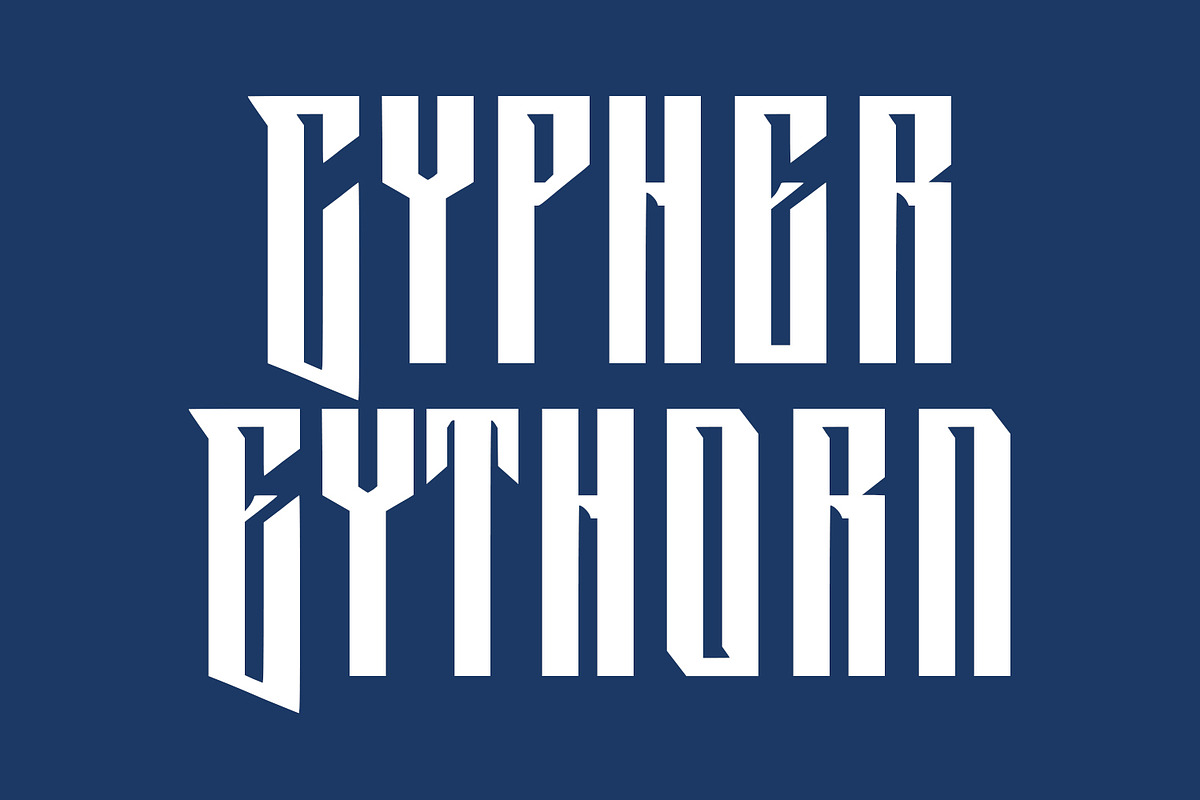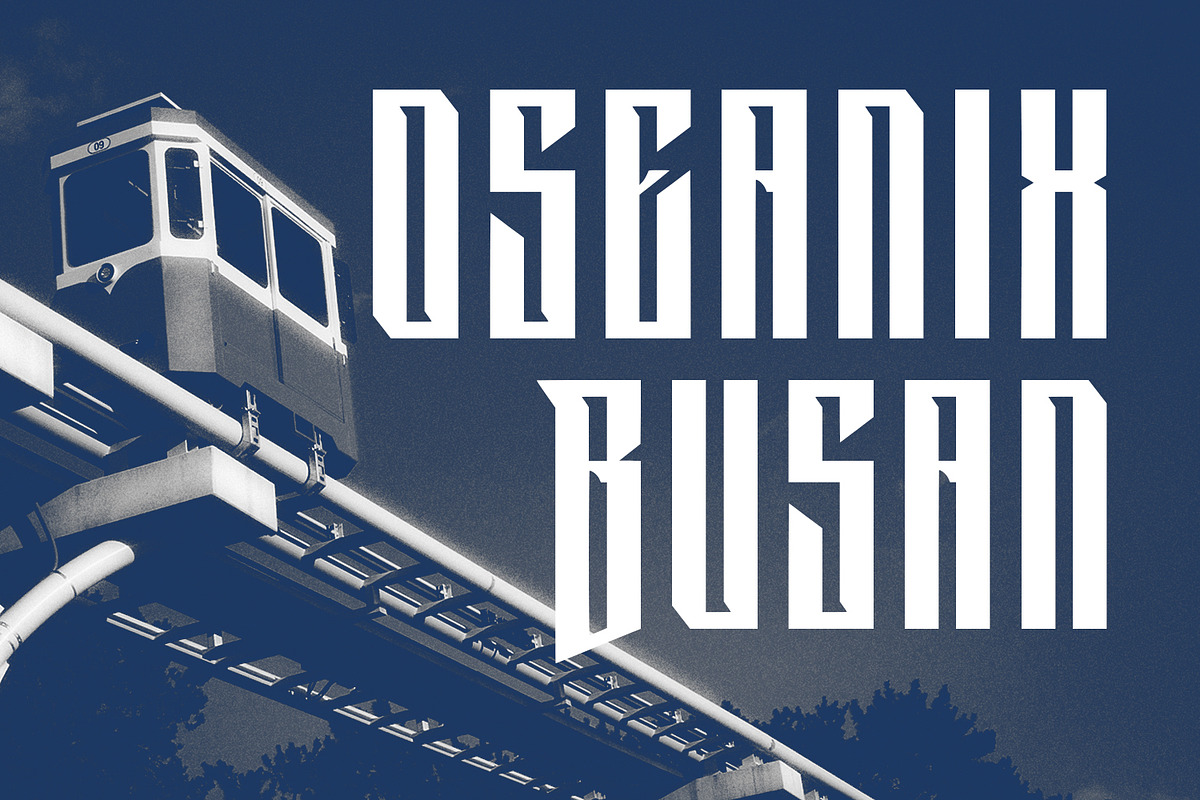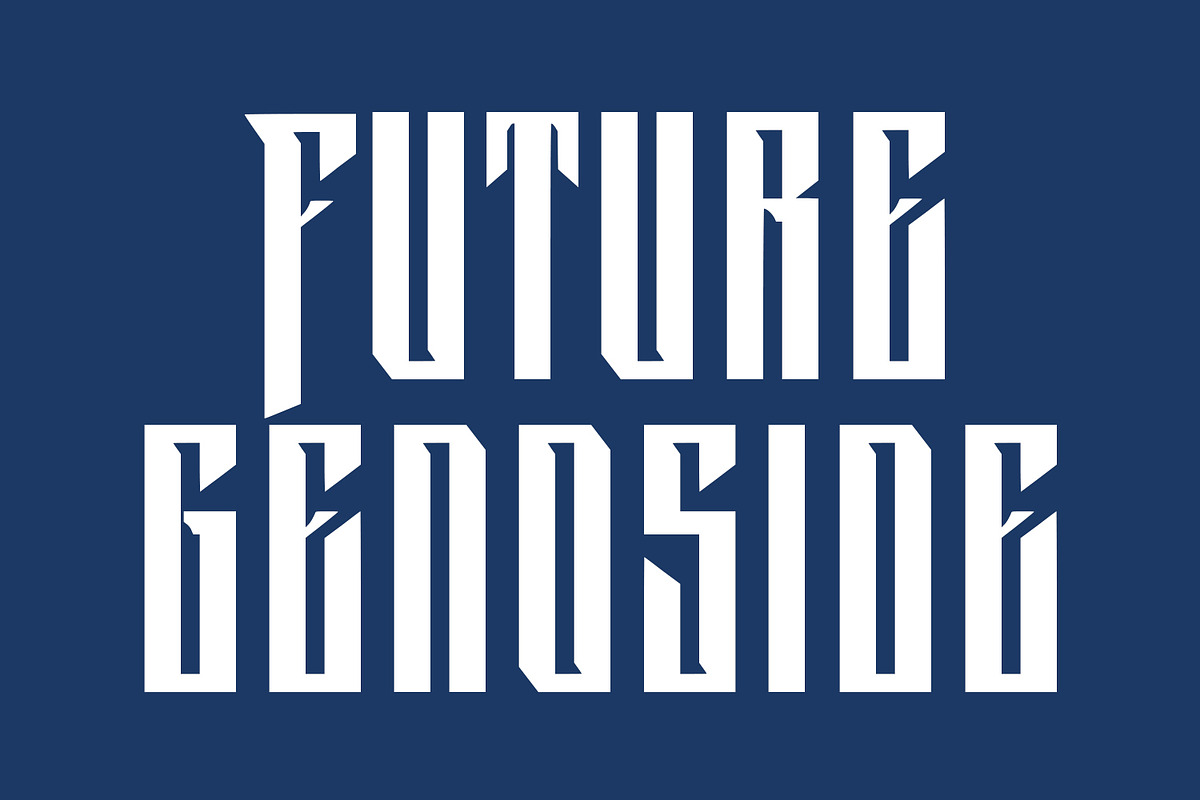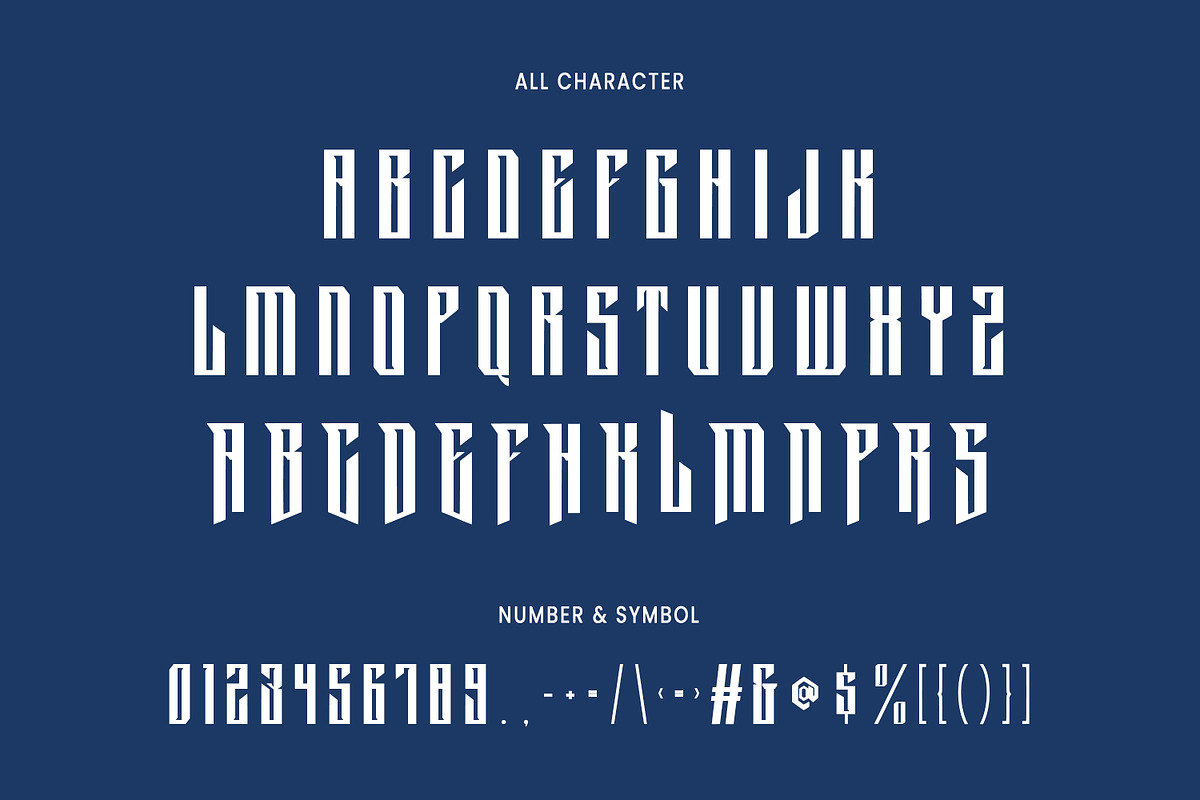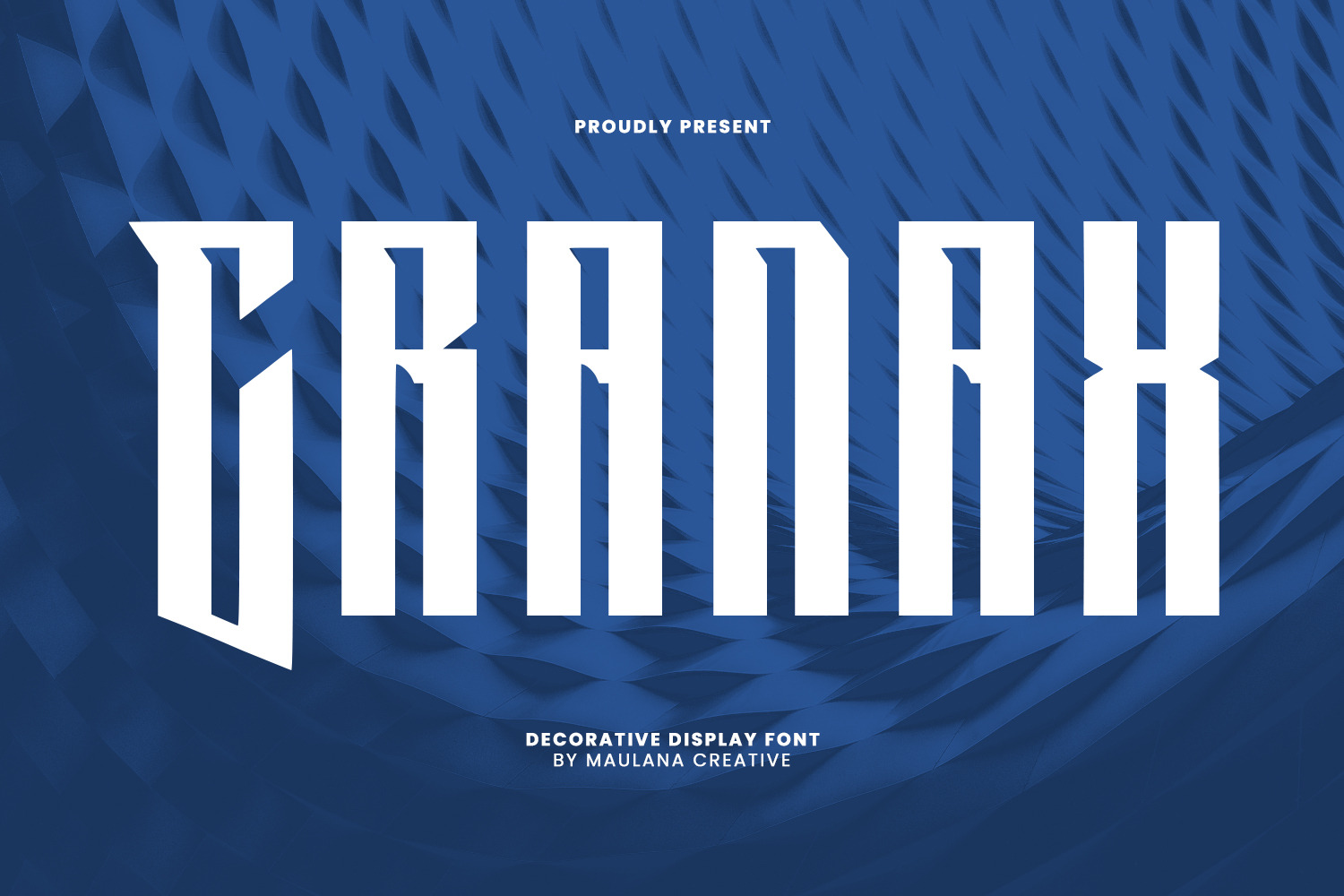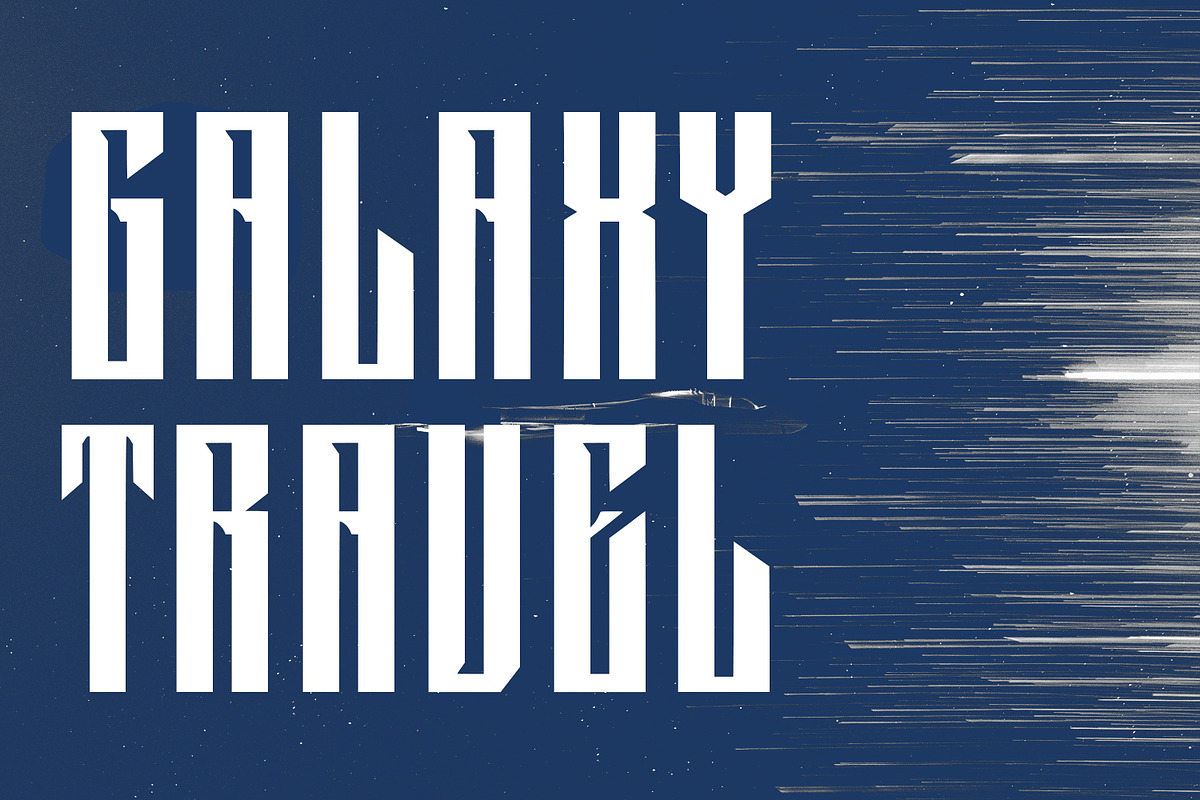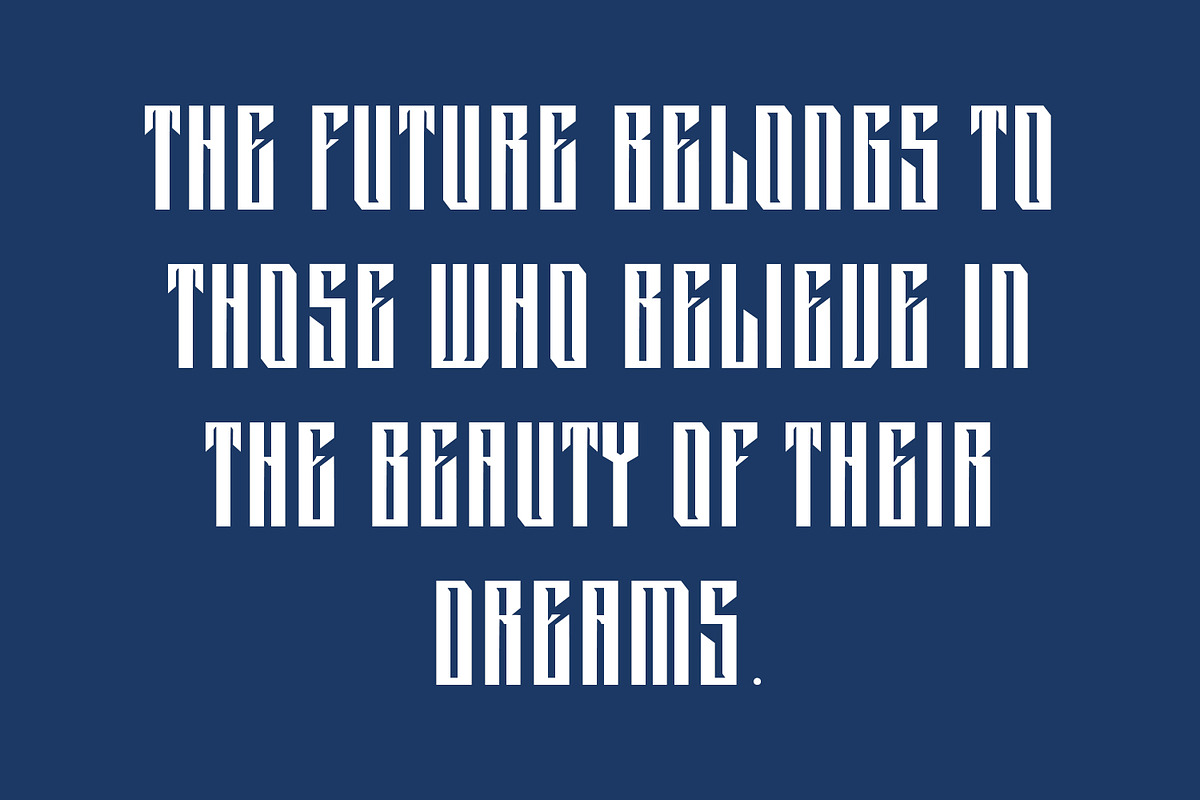
Cranax Decorative Display Font
Cranax is a decorative display font. Bold stroke, fun character with a bit of ligatures and stylistic. To give you an extra creative work. Cranax font support multilingual more than 100+ language. This font is good for logo design, Social media, Movie Titles, Books Titles, a short text even a long text letter and good for your secondary text font with script or serif. Make a stunning work with Cranax font.